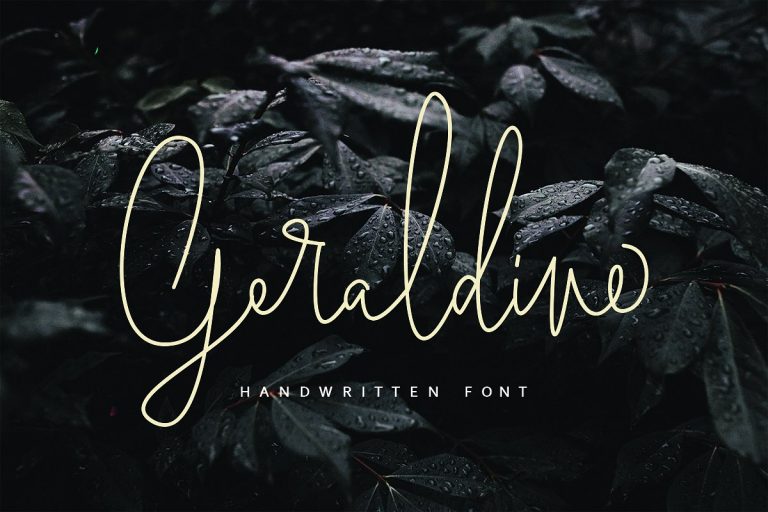
Geraldine Handwritten Font
I would like to introduce Geraldine, a handwriting typeface. Please add it to your collection files if it is it helpful. Geraldine designed and shared by Geranium.Co. Geraldine is a font that is suitable for brand logos, each letter has been carefully crafted to make your text look beautiful. With the script style this modern font will be perfect for many different projects: watermarks, posters, weddings, branding, logos, fashion, clothes, letters, invitations, etc.